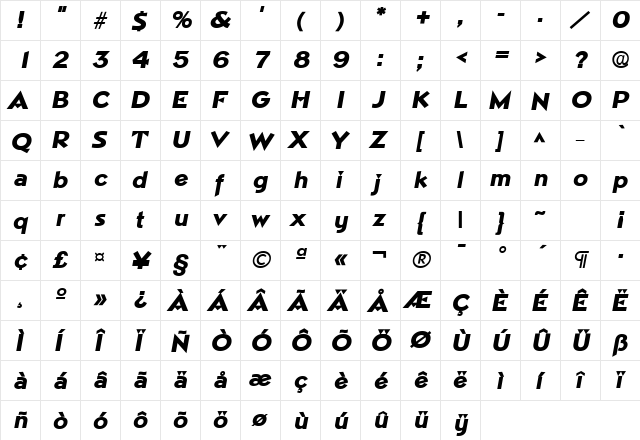
Napa Heavy SF Bold Italic Font Preview
Design Context for Napa Heavy SF Typeface
Napa Heavy SF offers clean, dependable letterforms without strong stylistic allegiance, making it a practical choice for designers who need flexibility. Its italic angle brings a sense of urgency and motion to the letterforms. The heavy weight commands attention and anchors typographic hierarchies.
Pro Tip: Try Napa Heavy SF for annotation and caption copy alongside an upright companion — the contrast in angle creates a dynamic but ordered typographic system.